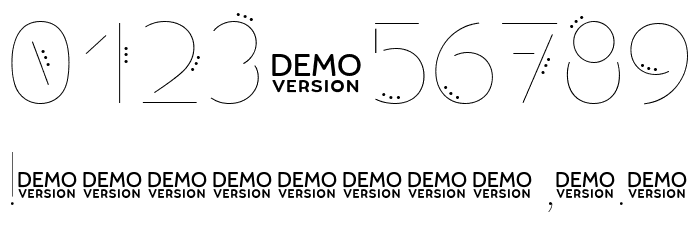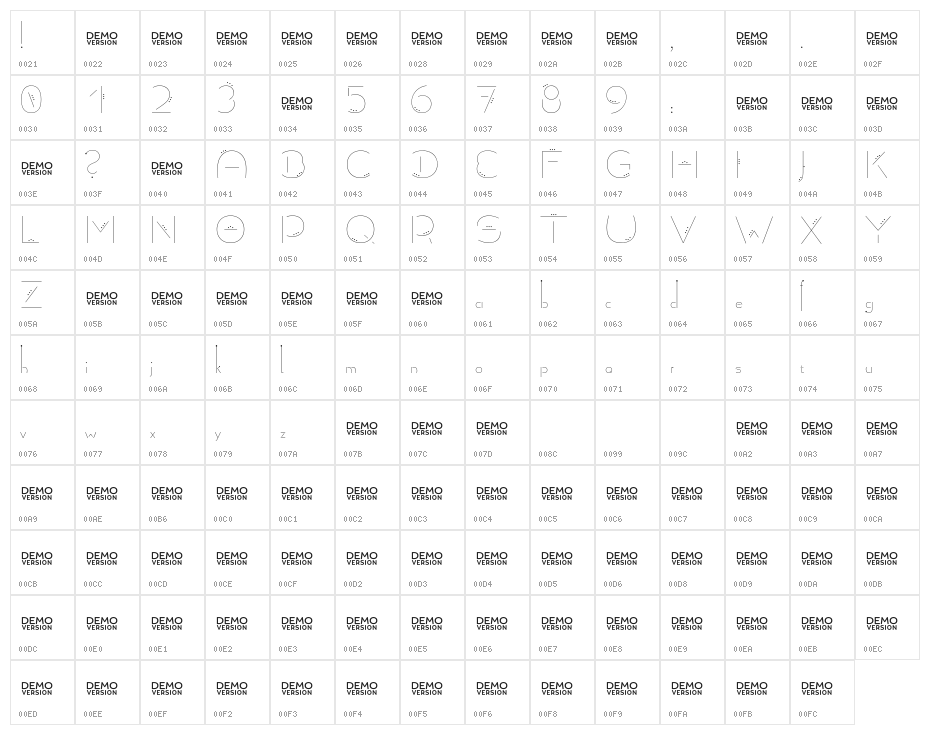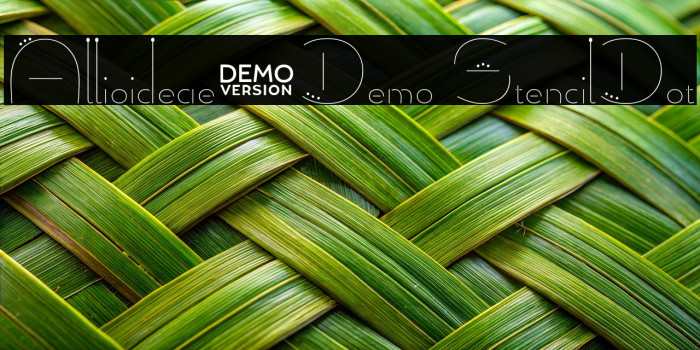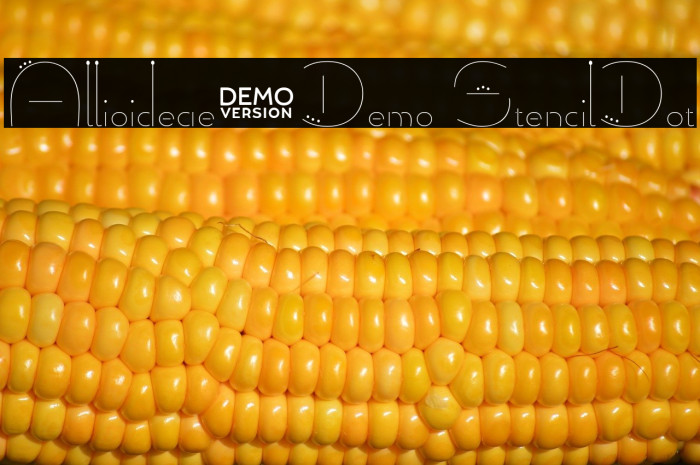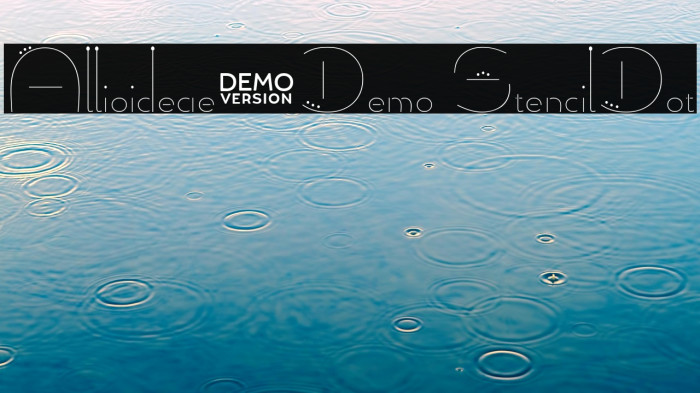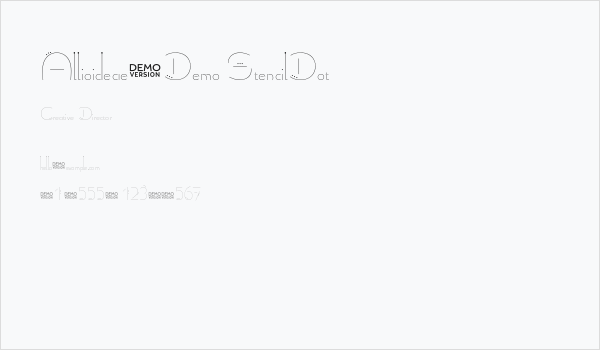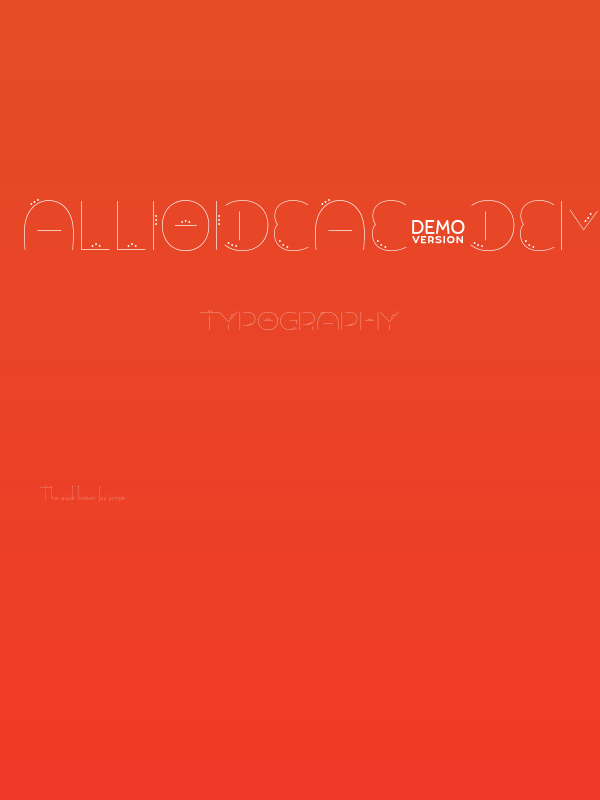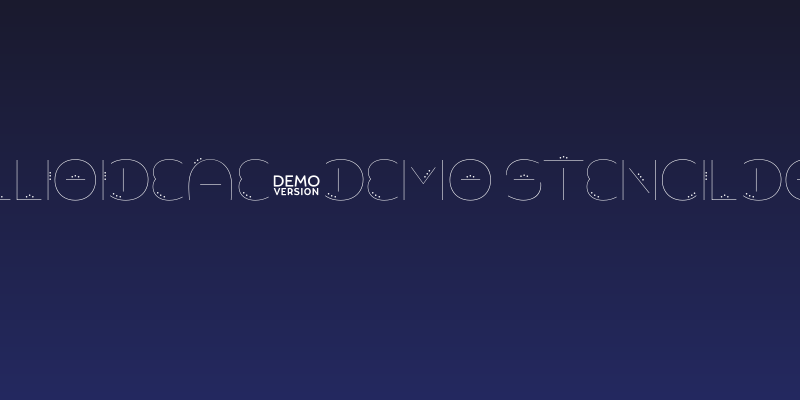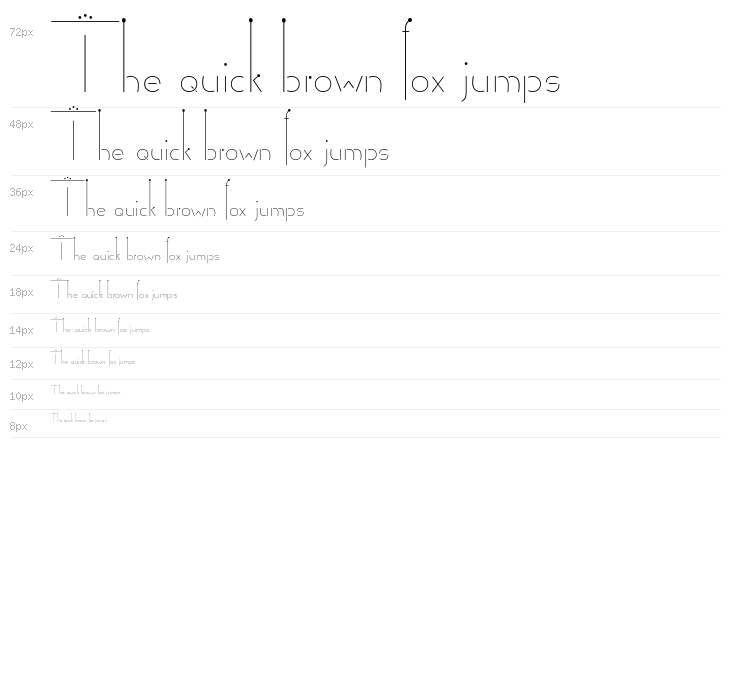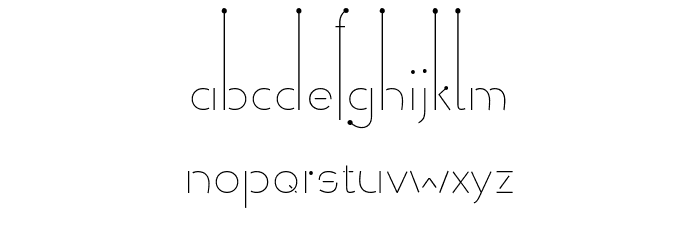
Allioideae-Demo StencilDot Font
Allioideae-Demo StencilDot Description
This font features a unique stencil design with a dotted pattern that adds a modern and artistic flair. The uppercase letters are characterized by clean lines and geometric shapes, while the lowercase letters maintain a similar style with a slightly softer touch. Numbers and special characters follow the same design principles, ensuring a cohesive look. The font's distinctiveness lies in its combination of stencil cuts and dot embellishments, making it stand out in any design project. Its modern and innovative style makes it suitable for creative and contemporary applications.